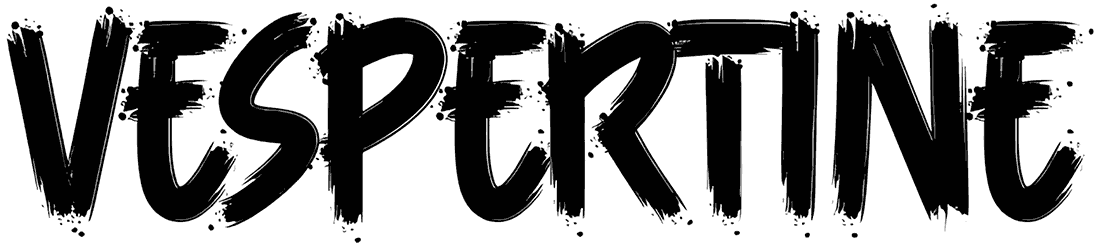
Vespertine Font
The contemporary script brush font Vespertine, which has two sets of uppercase letters, may be used for a variety of things, including printed text, banners, clothing, and seasonal decorations, despite its lack of lowercase letters and some numbers.